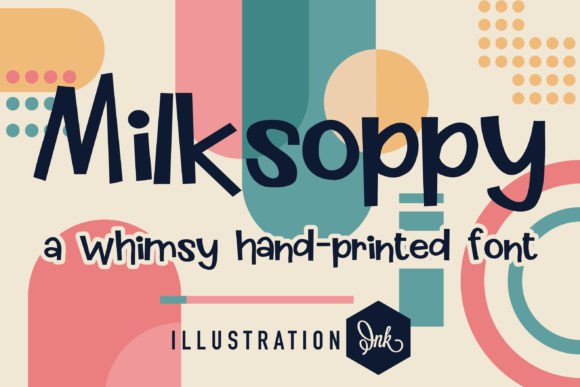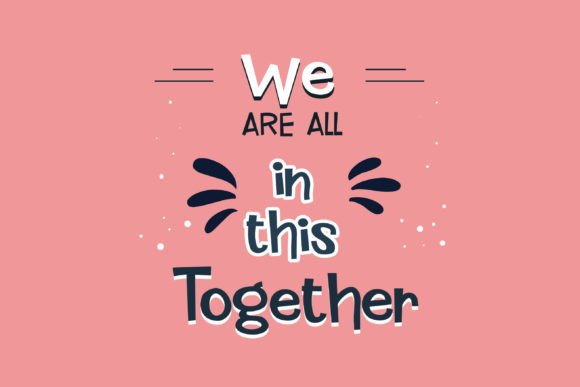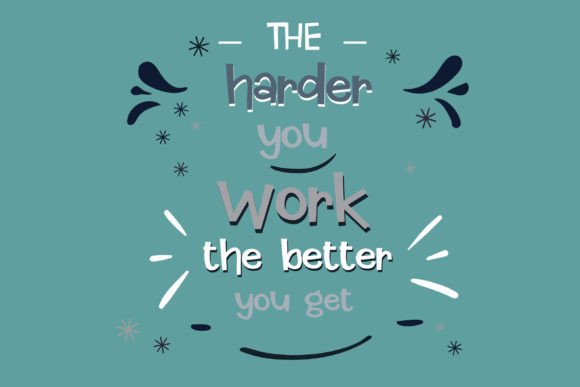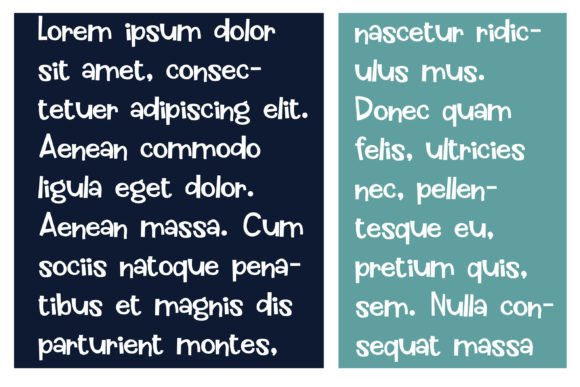
Milksoppy Font: A Playful Handwritten Font for Cute Craft Projects
About the Milksoppy Font
Meet Milksoppy Font, a stunning font that brings a touch of elegance and professionalism to any design. This whimsical handwritten font is playful and fun, yet still maintains a sense of charm and elegance. The letters dance across the page with their quirky shapes and lively strokes, making any project feel light and carefree.
Milksoppy Font shines in projects requiring a touch of whimsical charm. It’s ideal for headlines, short-form content, branding for children’s products, invitations, or packaging design where a playful yet sophisticated feel is desired. Avoid using it for large blocks of body text or UI elements; its informal nature compromises readability in extended passages.
Pairing Milksoppy with a clean sans-serif like Open Sans for body copy creates a balanced contrast, allowing the playful headline to stand out. For a more elegant effect, consider pairing it with a classic serif font like Garamond. A geometric sans-serif could also work well, providing a modern counterpoint to Milksoppy’s hand-drawn quality.
Its core personality is best described as playful and elegant. The font conveys a sense of youthful energy and lightheartedness without sacrificing a degree of sophistication.
Milksoppy Font Usage Examples
Milksoppy Font Example